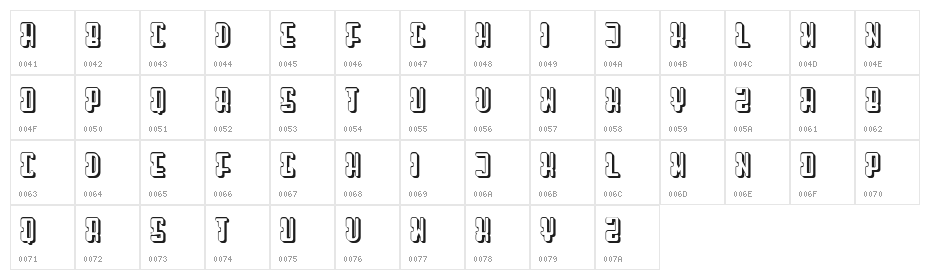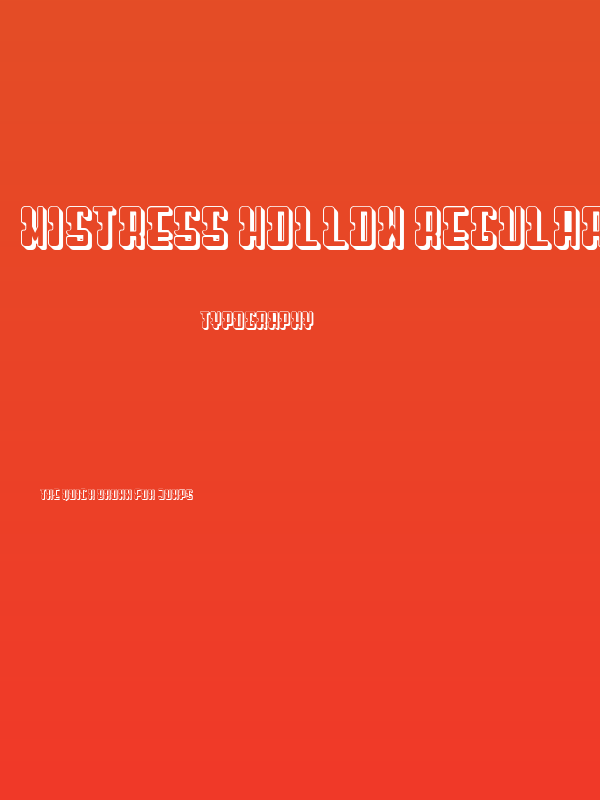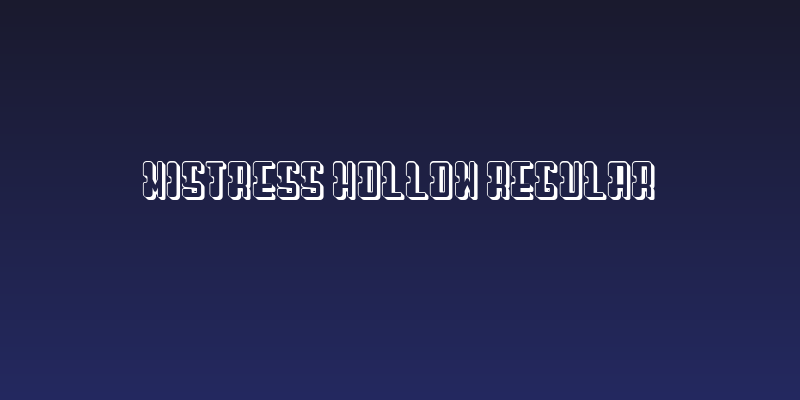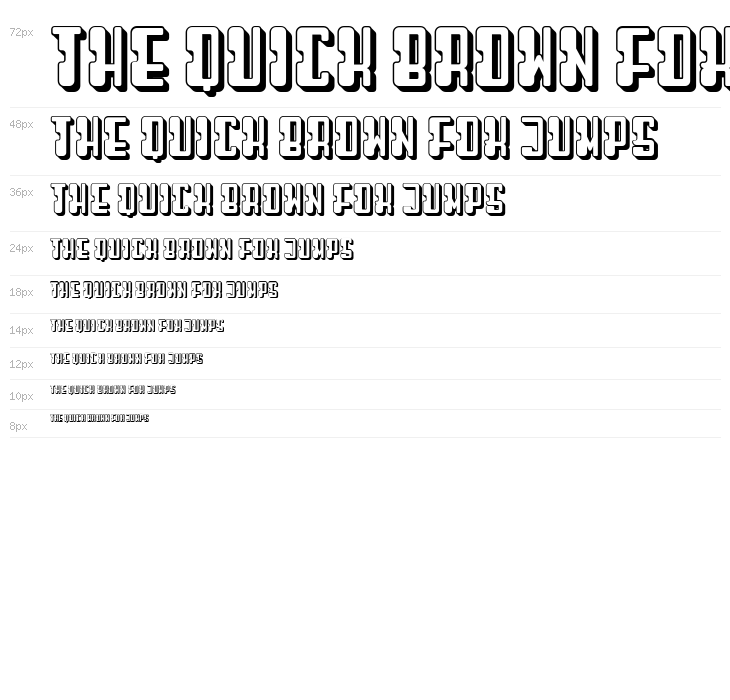
Mistress Hollow Regular Font
Mistress Hollow Regular Description
This font features a bold, geometric style with a hollow interior, giving it a unique and eye-catching appearance. The characters are outlined with a thick border, creating a strong visual impact. The design is consistent across both uppercase and lowercase letters, as well as numbers and special characters. Its structured form and bold outlines make it suitable for designs that require a modern and dynamic look. The font's distinct style is ideal for projects that aim to stand out and make a statement.
| Proposed Projects | Ideal for posters, logos, and headlines that require a modern and striking appearance. |